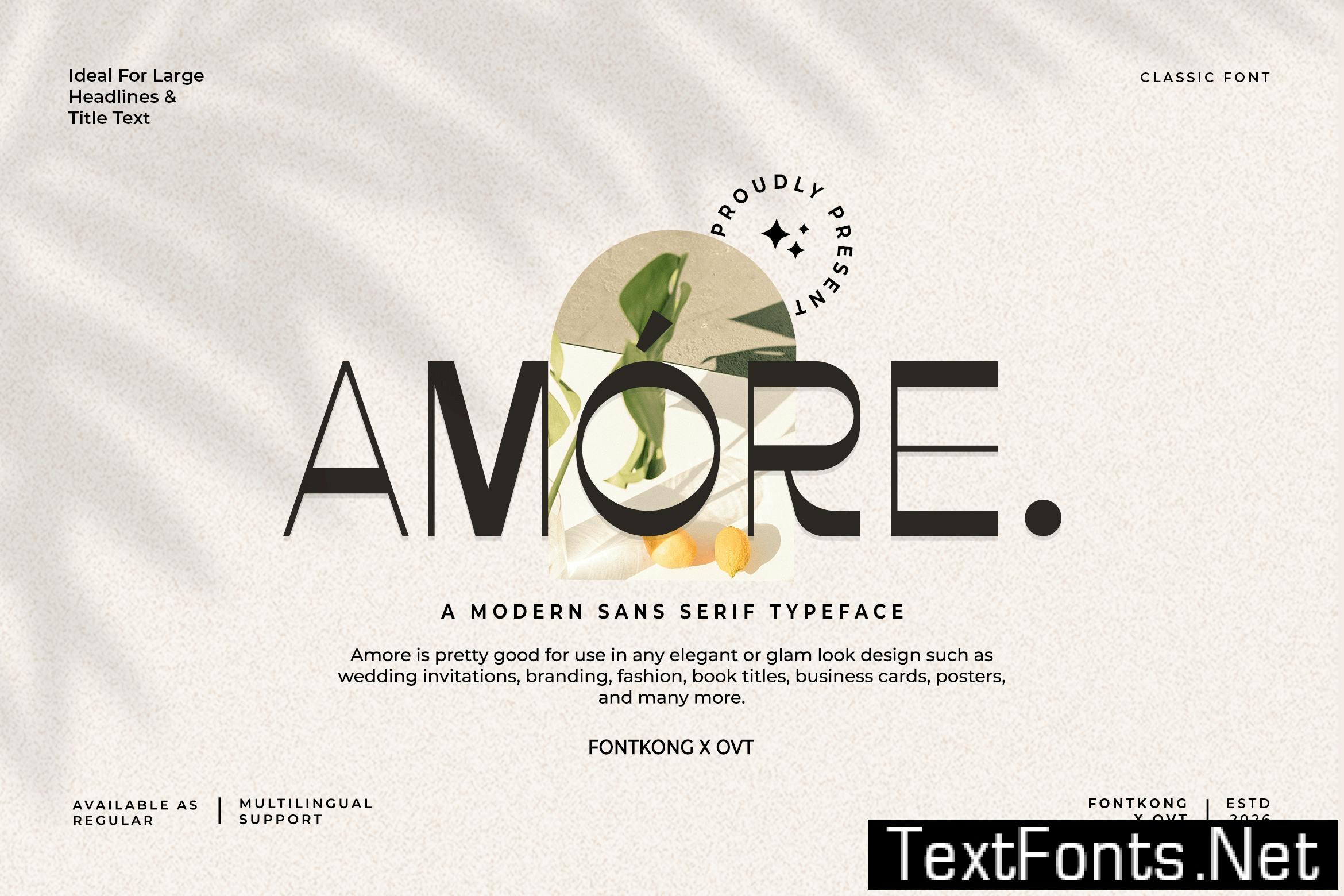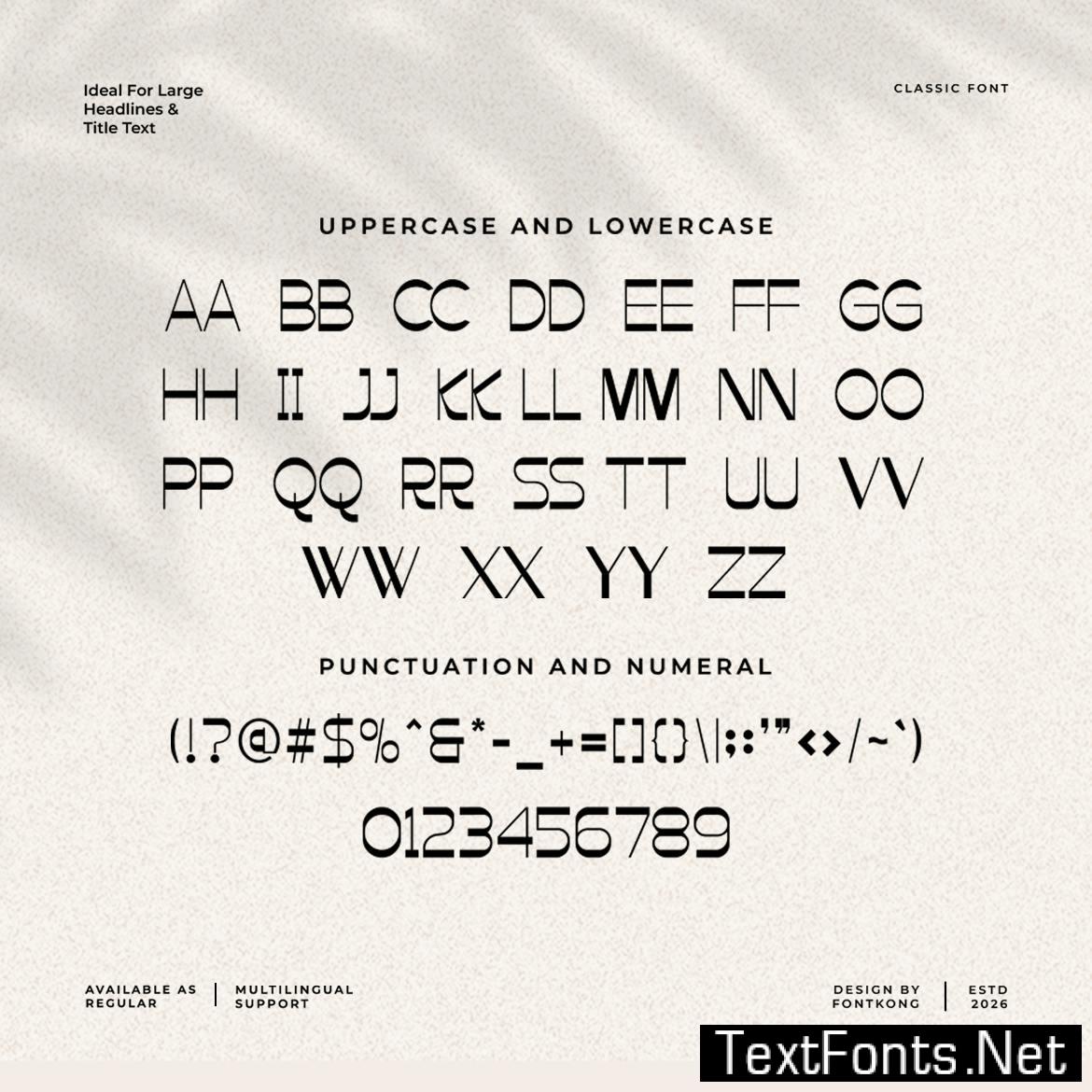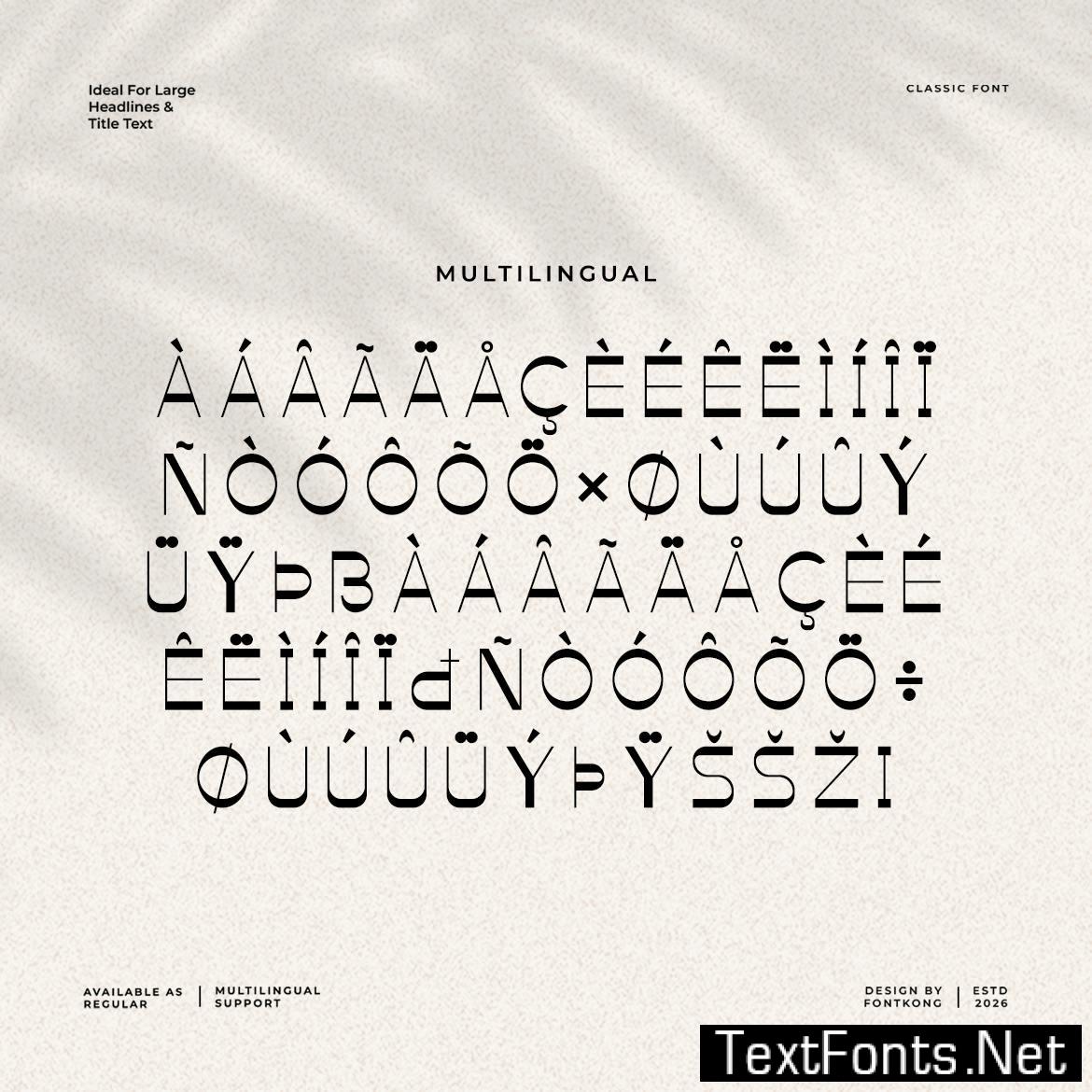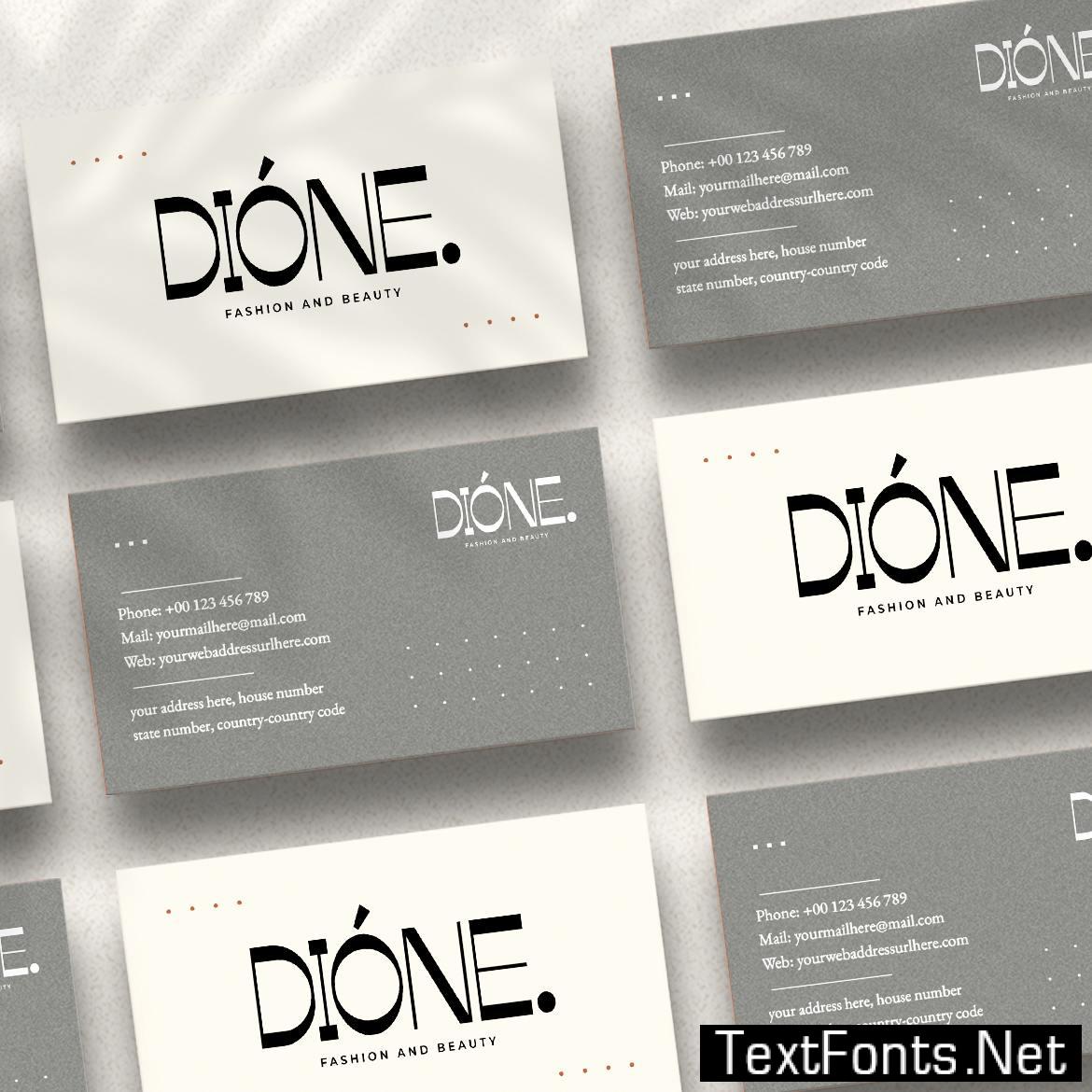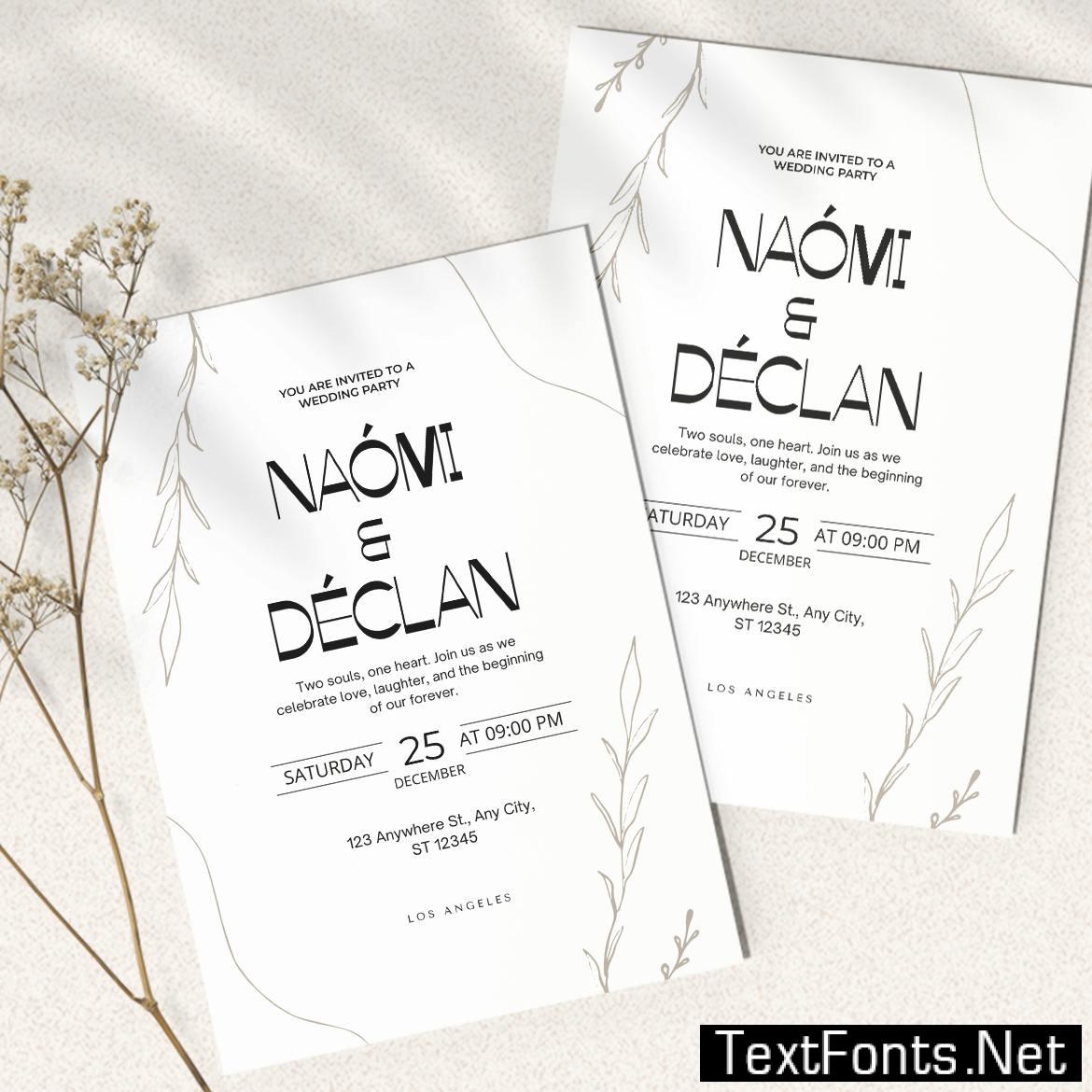
**Amore – Modern Sans Serif Typeface**
Introducing “Amore,” a modern sans serif typeface that blends elegance with contemporary simplicity. Perfect for graphic designers, typographers, and creatives looking to add a touch of sophistication to their projects, Amore offers a clean and versatile design that enhances readability and visual appeal.
Ideal for branding, editorial layouts, web design, packaging, and corporate identities, Amore’s balanced and refined characters provide a timeless aesthetic. Each letter is meticulously crafted to ensure clarity and legibility across various mediums, making your designs both polished and professional.
The “Amore” font includes a complete set of uppercase and lowercase letters, numbers, punctuation marks, and special characters. This comprehensive set ensures seamless integration into diverse design applications, from sleek logos to elegant print materials.
Elevate your designs with Amore, the modern sans serif typeface that embodies elegance through simplicity.